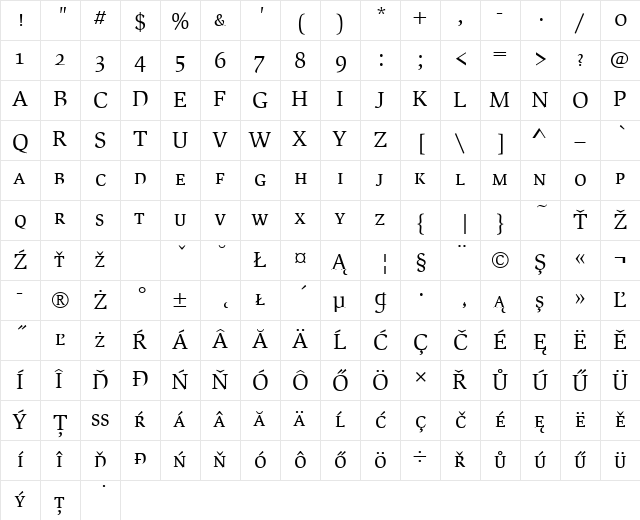
SlimbachSCItcTEEBoo Regular Font Preview
SlimbachSCItcTEEBoo Regular
Design Context for SlimbachSCItcTEEBoo Typeface
SlimbachSCItcTEEBoo offers clean, dependable letterforms without strong stylistic allegiance, making it a practical choice for designers who need flexibility.